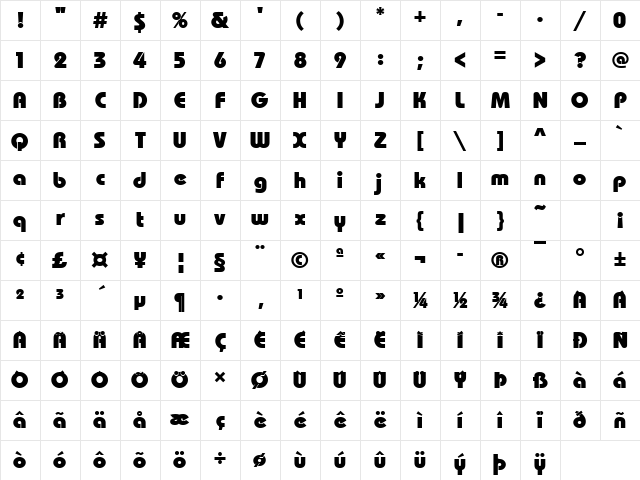
BauhausItcPHea Regular
Design Context for BauhausItcPHea
BauhausItcPHea is a composed and adaptable typeface that performs quietly and consistently across a wide range of design contexts.
Pro Tip: Use BauhausItcPHea in both headline and body roles to test its range before committing to a single application.